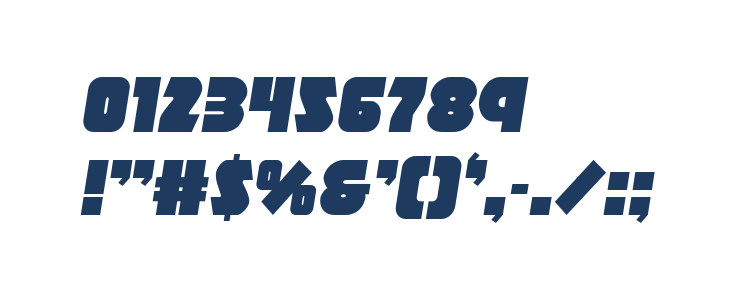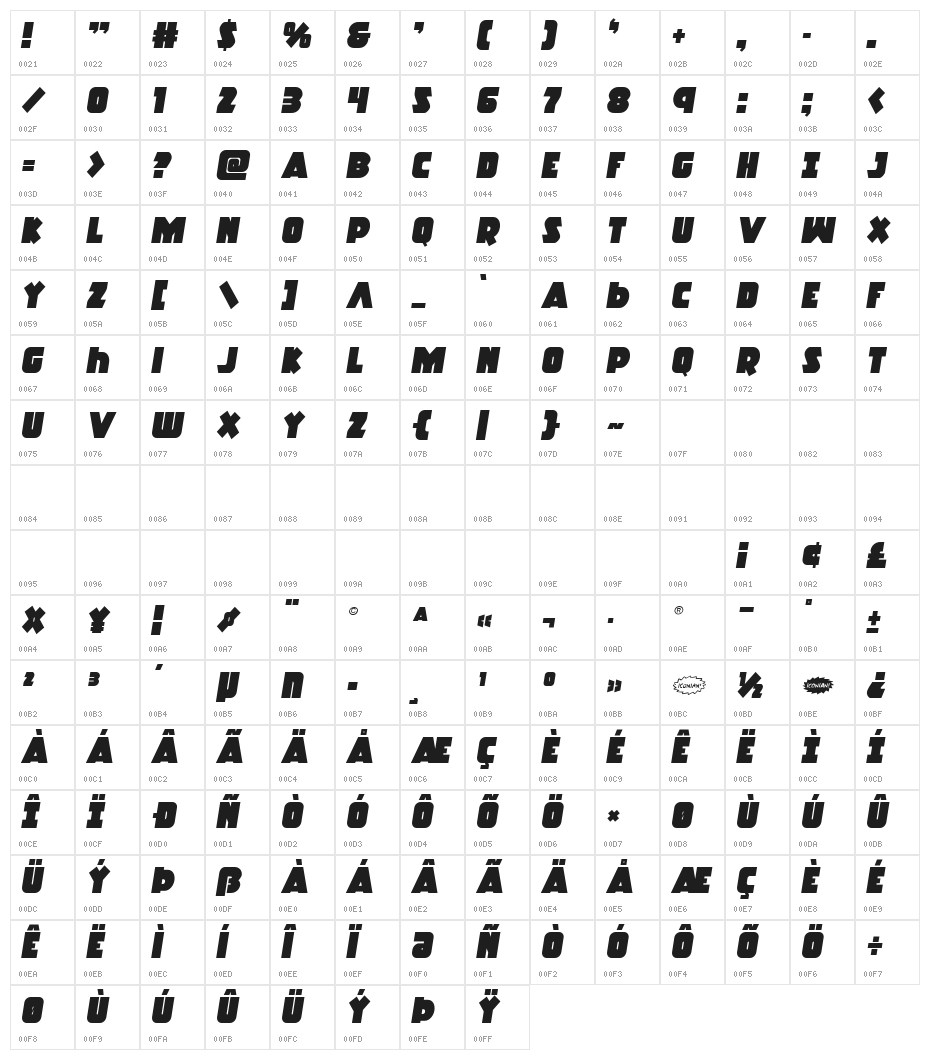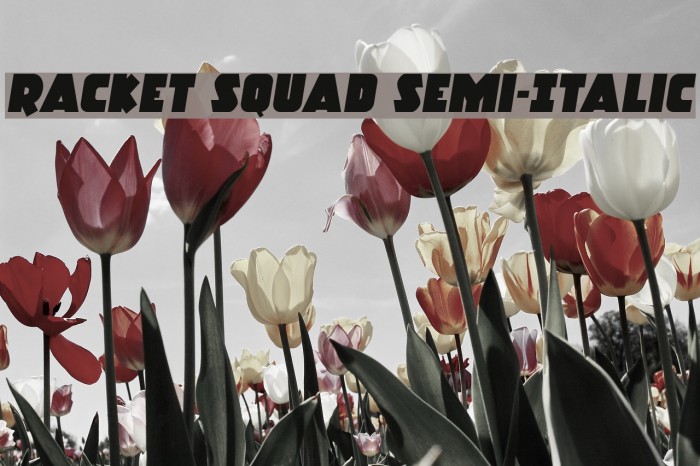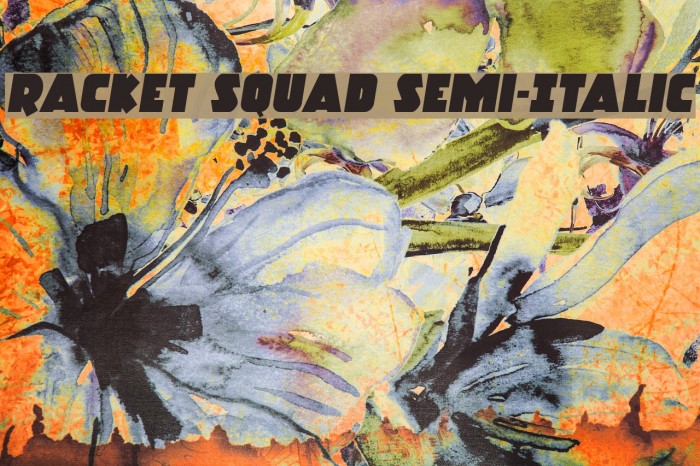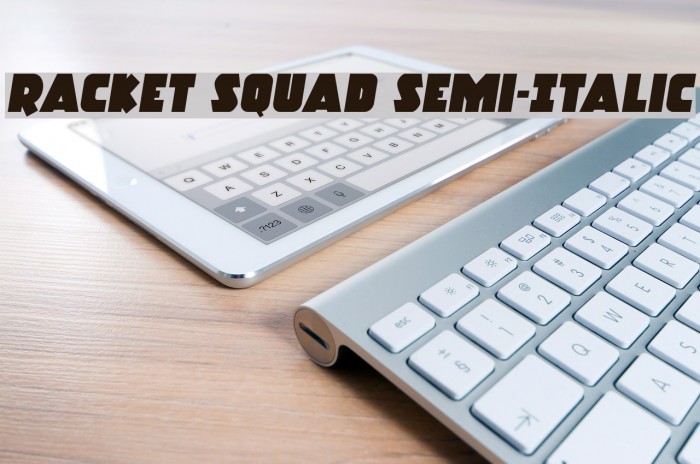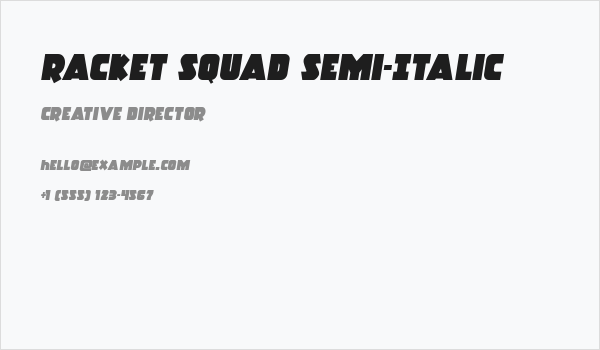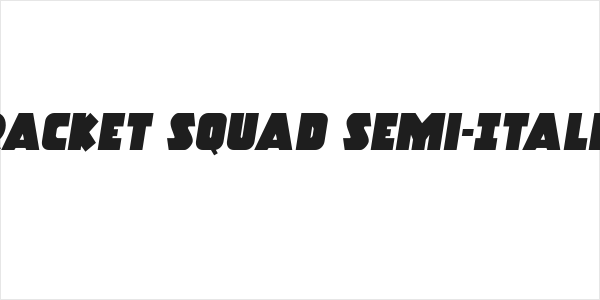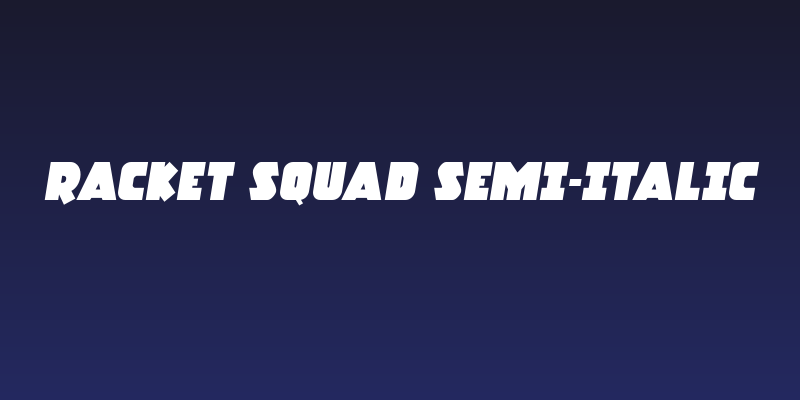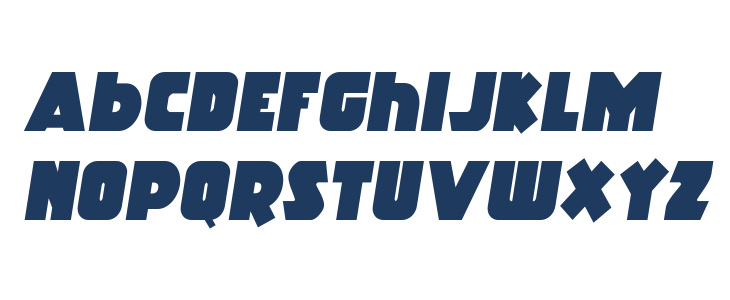
Racket Squad Semi-Italic Font
Racket Squad Semi-Italic Description
This bold and dynamic font features a strong, angular design with a semi-italic slant, giving it a sense of movement and energy. The characters are wide and robust, with a distinct geometric style that makes them stand out. The uppercase and lowercase letters maintain a consistent style, with sharp edges and a slightly condensed appearance. The numbers and special characters follow the same bold and impactful design, making this font ideal for attention-grabbing headlines and titles. Its unique style is both modern and slightly retro, reminiscent of vintage sports or action-themed designs.
| Overall Style | Modern, Vintage |
| Proposed Projects | Ideal for sports branding, action-themed posters, video game titles, and dynamic logos. |